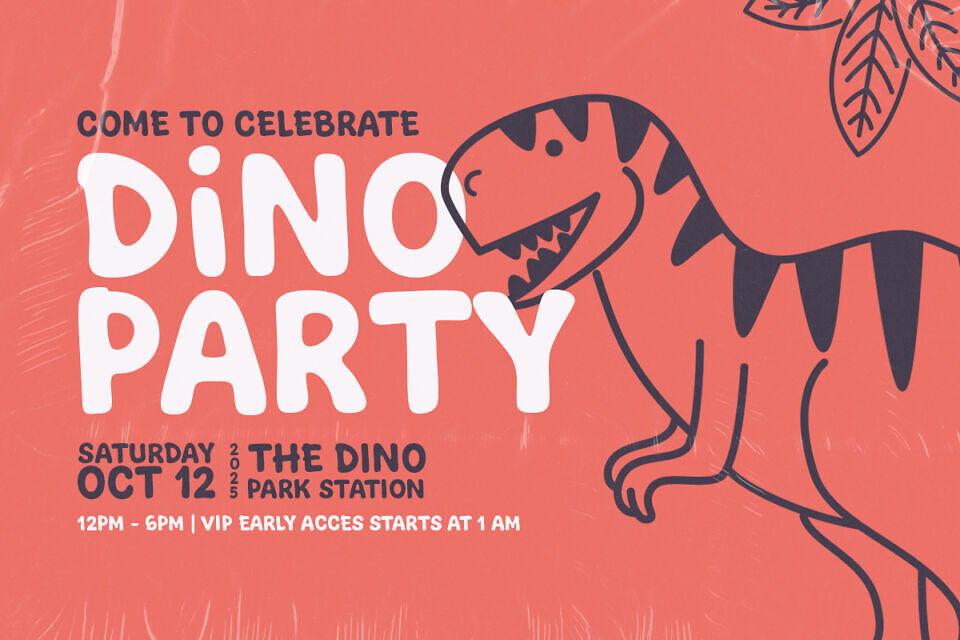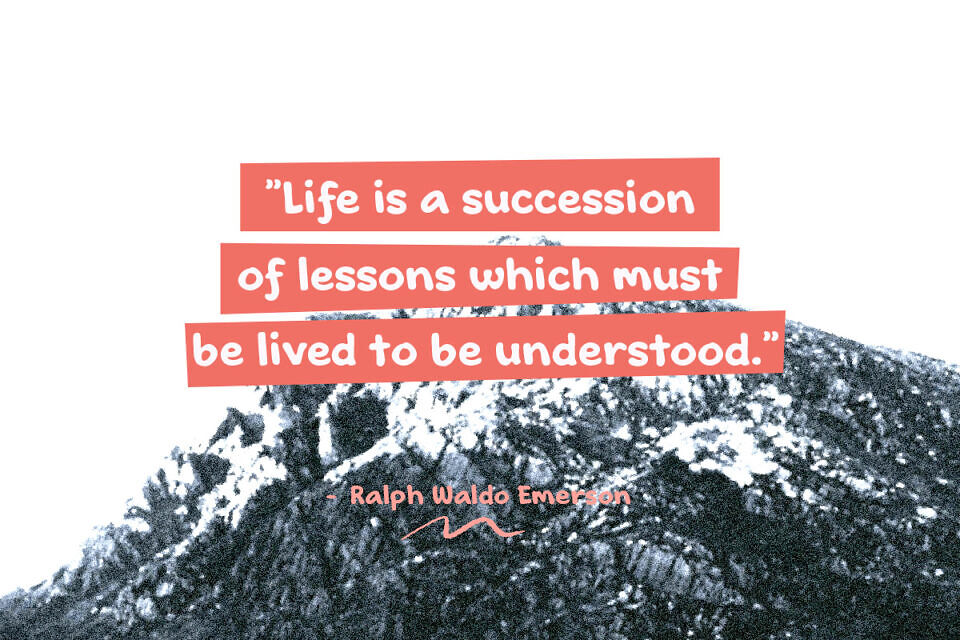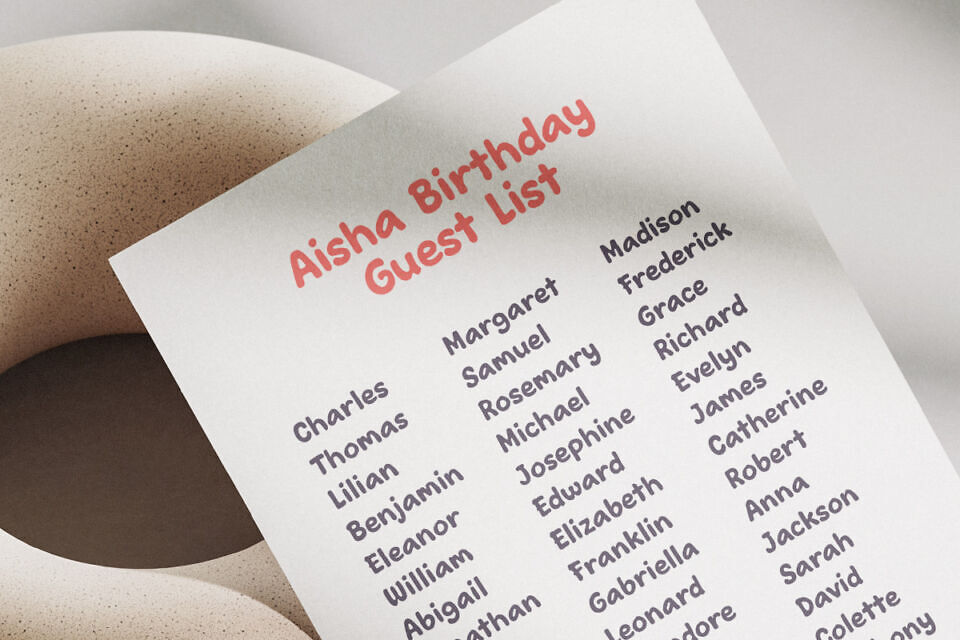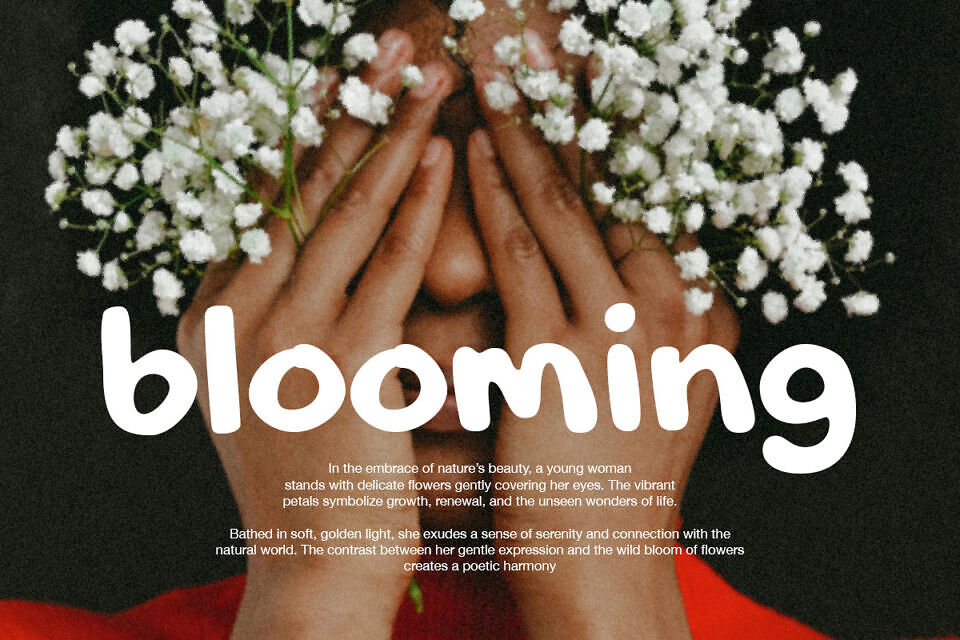
Jemari is a playful handwritten font designed to bring warmth, friendliness, and an authentic handcrafted feel to your creative projects, perfect for playful branding, children’s books, and joyful event designs.
Inspired by the charming spontaneity of hand-drawn notes and youthful creativity, Jemari evokes feelings of cheerfulness, warmth, and friendly approachability. Each letterform radiates a casual charm, effortlessly bringing smiles and a sense of welcoming energy to any design.
Jemari shines in projects like playful branding identities, cheerful packaging designs, children’s storybooks, invitations, casual clothing branding, personal branding, and social media graphics. Its joyful and inviting personality will inject positivity and a delightful energy into your visual storytelling, instantly connecting with your audience.